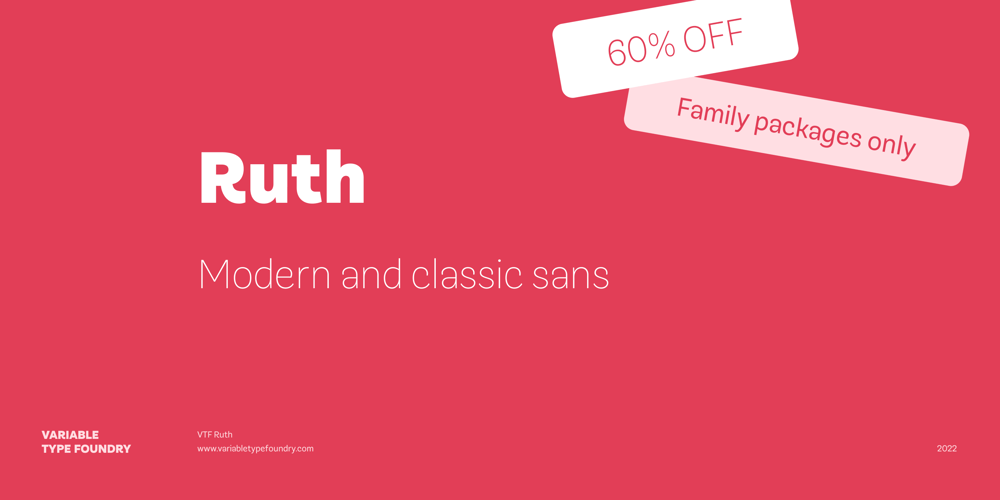
VTF Ruth
VTF Ruth font
VTF Ruth Font Family was designed by Lole Román and published by Variable Type Foundry. VTF Ruth contains 36 styles and family package options. VTF Ruth is a different typeface with a sans serif style inspired by classic geometric typefaces, adding a contemporary and modern touch in its output to seek style and quality in any project.This very personal character of its shapes, together with the variety of eighteen weights with their respective italics (Thin, Extra Light, Ultra Light, Light, Regular, SemiBold, Bold, Ultra Bold, and Black) and two styles, makes it perfect to combine with VTF Justina in digital editorial projects (e.g., web or apps) or printed (e.g., books, magazines or packaging). Making it an exciting option for large and small bodies without losing legibility at any weight.VTF Ruth has Opentype functions (case-sensitive forms, ordinals, scientific lower case, denominators, superscripts, subscripts, numerators, fractions) designed exclusively for your design. Supported languages: Afrikaans, Albanian, Catalan, Croatian, Czech, Danish, Dutch, English, Estonian, Finnish, French, German, Hungarian, Icelandic, Italian, Latvian, Lithuanian, Maltese, Norwegian, Polish, Portuguese, Romanian, Slovak, Slovenian, Spanish, Swedish, Turkish and Zulu.